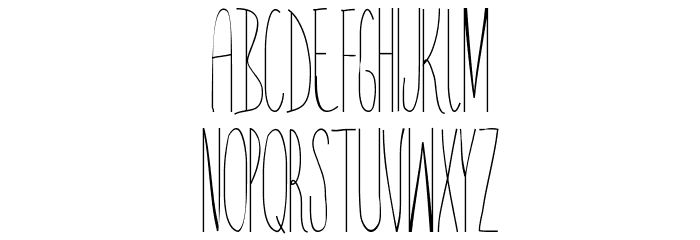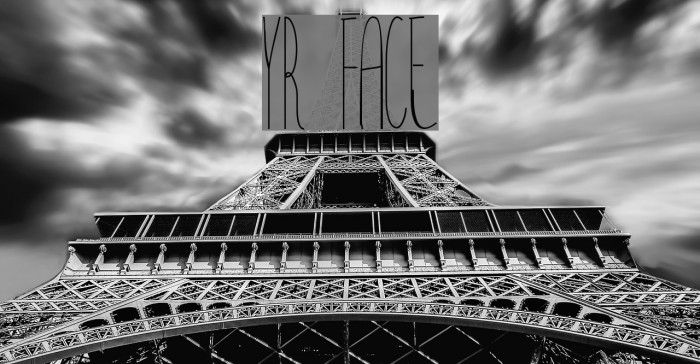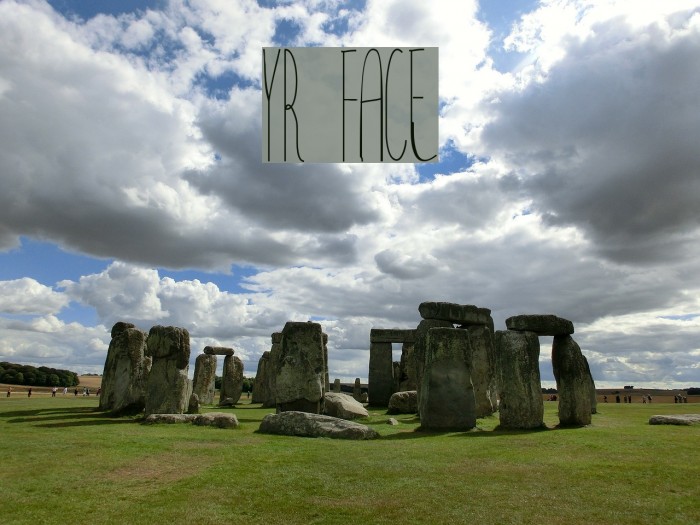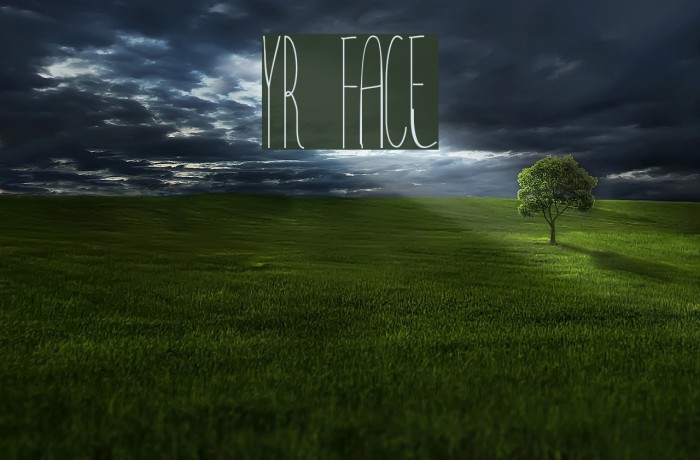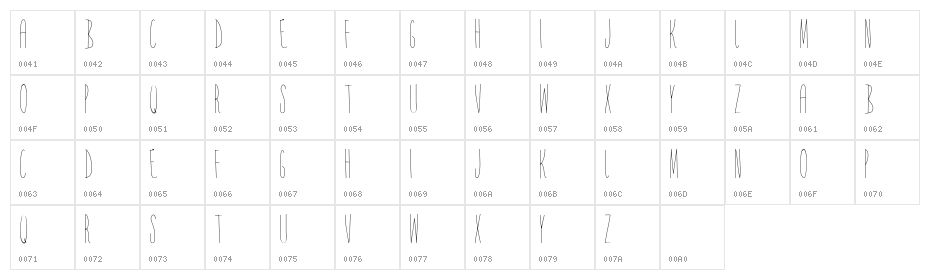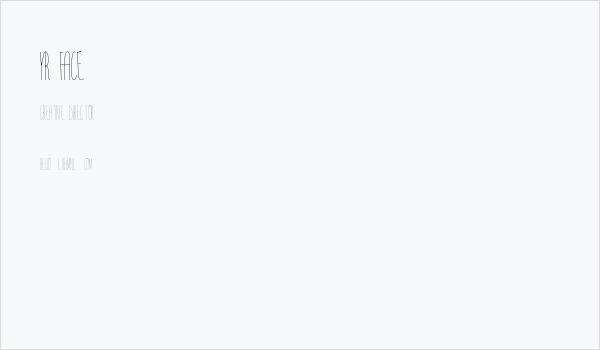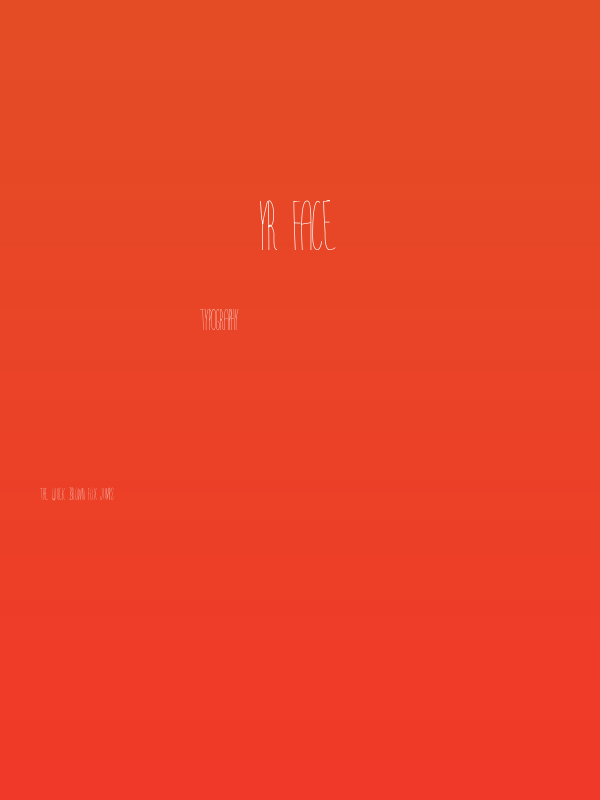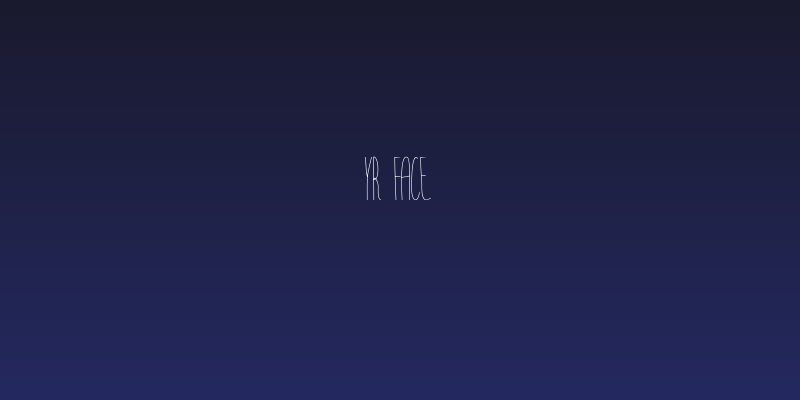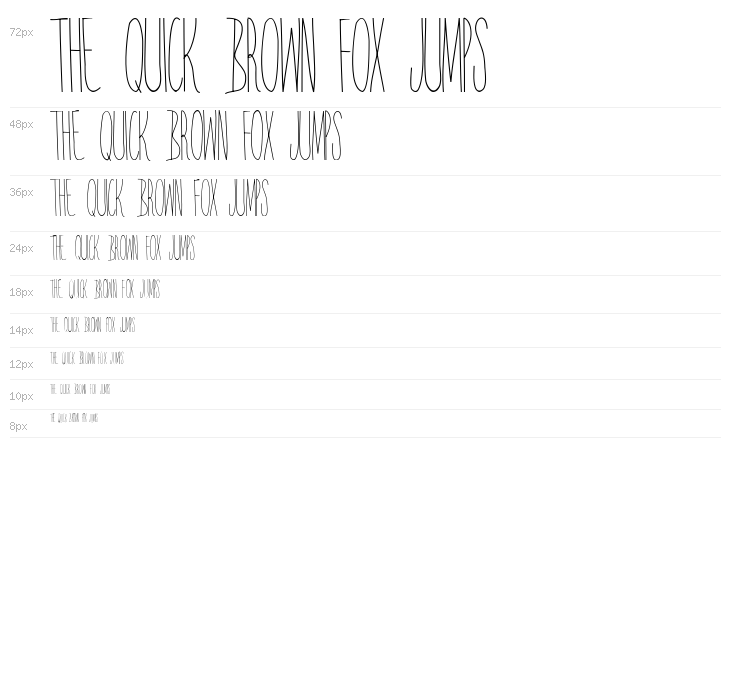
YR FACE Font
This font features an elongated and narrow design, characterized by its tall, slender letterforms that give it a distinctive and elegant appearance. The strokes are consistent in width, creating a uniform look across all characters. The uppercase letters are particularly striking, with a modern and minimalist aesthetic that is both stylish and sophisticated. This font's unique style makes it suitable for creative and artistic projects where a touch of elegance is desired. The overall design is clean and uncluttered, making it versatile for various applications.
A tall, slender, and elegant font with a modern minimalist aesthetic.
- Proposed Projects: Ideal for fashion branding, editorial design, luxury product packaging, and artistic posters.